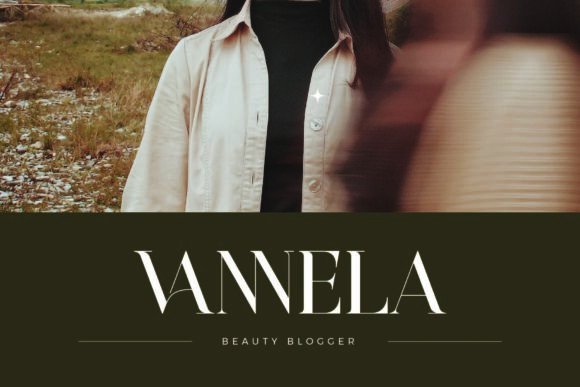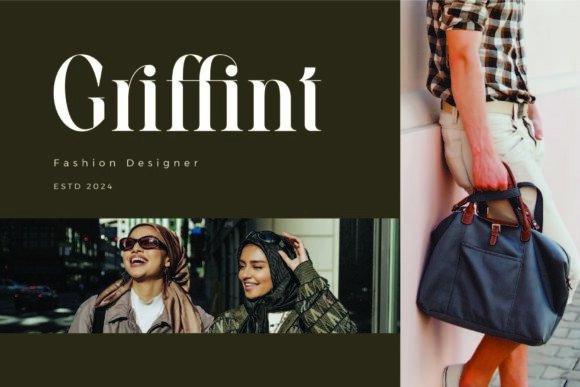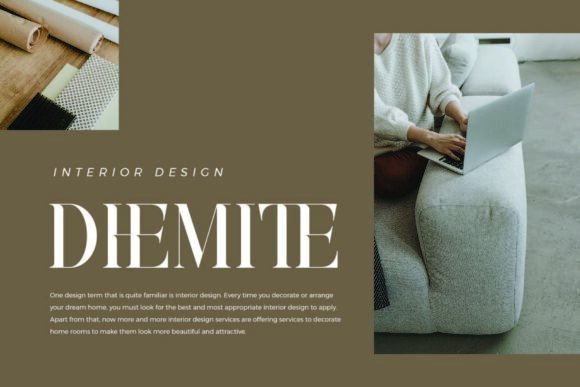
Introduction to Cathez Font
Cathez Stylish Ligature Typeface, inspired by the famous minimalist logo perfect for the purposes of designing templates, brochures, videos, advertising branding, logos, and more.
Why Choose Cathez Font?
Cathez Font offers exceptional quality and versatility, making it a valuable addition to your design toolkit. Whether you’re creating for personal projects or commercial use, Cathez Font delivers professional results.